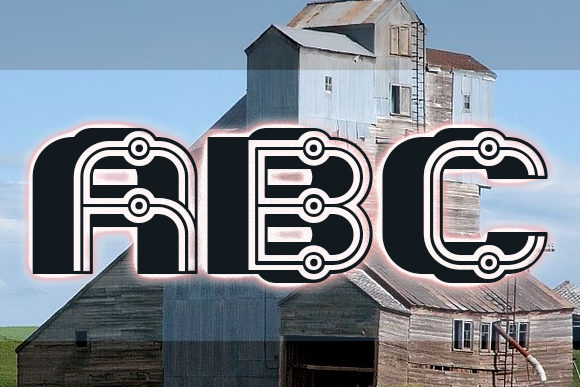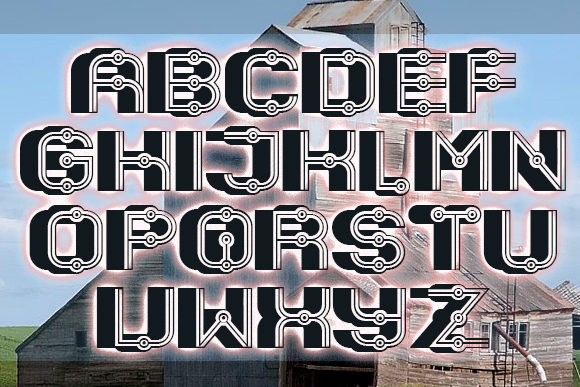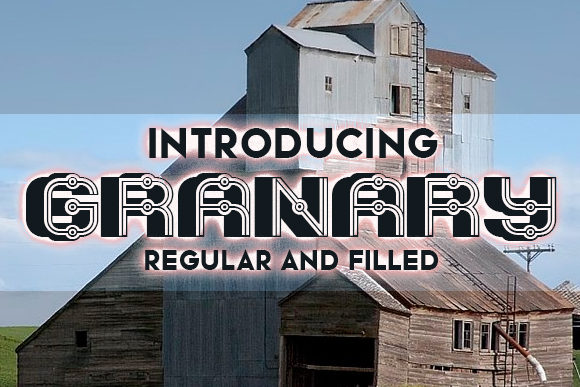
Introducing Granary Font: Elevate Your Designs with a Simple yet Sharp Display Font
In the world of design, typography plays a crucial role in conveying messages, evoking emotions, and creating visual identities. For designers and crafters seeking a font that combines simplicity with a sharp, inspiring aesthetic, look no further than the Granary Font. This versatile display font is engineered to breathe life into your projects, offering a clean and crisp look that can transform your designs. In this article, we’ll explore the essence of the Granary Font, its features, and how it can be a game-changer for your creative endeavors.
The Essence of Granary Font
Granary is a thoughtfully crafted display font that embodies both simplicity and sophistication. Its design is characterized by clean lines, sharp edges, and an overall minimalist approach that makes it incredibly versatile. Whether you’re working on a branding project, a website design, or crafting beautiful printable art, Granary Font provides a solid foundation that can elevate your work to new heights.
Key Features of Granary Font
- Simplicity and Versatility: Granary’s simple design ensures it can be used across various platforms and design projects without looking out of place. Its versatility makes it an excellent choice for designers who work on a wide range of projects.
- Sharp and Clean Aesthetic: The font’s sharp and clean aesthetic ensures that your designs stand out with a professional look and feel. This is particularly beneficial for creating visually appealing headings, titles, and quotes.
- Endless Possibilities: With Granary Font, the possibilities are truly endless. Use it for creating stunning posters, elegant business cards, engaging social media graphics, or any other design project that requires a bold yet refined typography.
Why Choose Granary Font for Your Designs?
Choosing the right font for your design project can be overwhelming, given the numerous options available. However, Granary Font stands out for several reasons:
- Legibility: Despite its simplicity, Granary Font maintains excellent legibility, ensuring that your message is conveyed clearly and effectively.
- Uniqueness: While there are many simple fonts available, Granary’s unique sharpness and clean lines offer a distinctive look that can set your designs apart from the rest.
- Easy to Pair: Granary Font is easy to pair with other fonts, allowing you to experiment with different typography combinations to find the perfect match for your design.
Exploring the Endless Possibilities of Granary Font
The true power of Granary Font lies in its ability to inspire and enhance your designs. Here are a few ideas on how you can use this versatile font:
- Branding and Logos: Use Granary Font to create memorable logos and brand identities that exude professionalism and simplicity.
- Digital and Print Media: From website headers to print materials like brochures and flyers, Granary Font can add a touch of elegance and sharpness to your projects.
- Social Media Graphics: Create engaging social media content with Granary Font, making your posts and stories stand out on crowded feeds.
- Crafting and DIY Projects: For crafters, Granary Font can be used in various DIY projects, such as custom signs, wall art, and handmade cards, adding a personalized and professional touch.
Granary Font is more than just a display font; it’s a tool that can transform your designs, offering a blend of simplicity, sharpness, and versatility. Whether you’re a professional designer or a crafting enthusiast, Granary Font provides the perfect foundation for a wide range of projects. Its clean lines and crisp aesthetic ensure that your designs not only look professional but also capture the essence of modern typography. Explore the endless possibilities with Granary Font and discover how it can elevate your creative work to new heights.